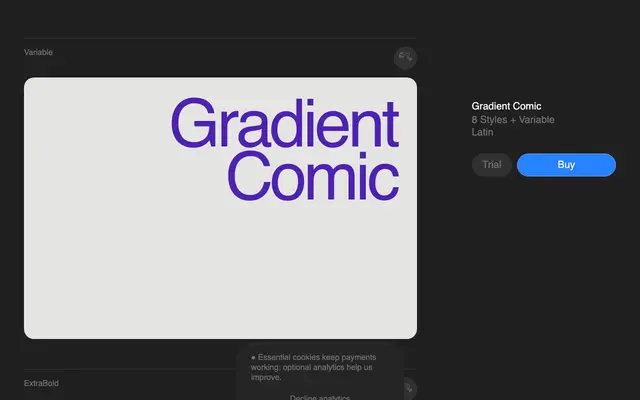
Gradient Comic
Superior Type · Matyáš Machat
A casual sans with handwriting inflections, built around a recurring diagonal stroke that ties together deliberately diverse letterforms across eight weights and a variable axis.
Gradient Comic sits between constructed sans-serif geometry and loose handwriting, with individual letterforms allowed to vary rather than conform to strict uniformity. A diagonal stroke recurring throughout the family serves as the only unifying design element, referencing multiple strands of 20th-century type history. The family ships in eight styles from Thin to ExtraBold, with a variable font included, 10 stylistic sets and support for 308 languages within the Latin script.
Described as bridging constructed sans-serif features with playful handwriting, the Comic variant leans into informal, casual letterform diversity typical of display or comic-style sans faces.